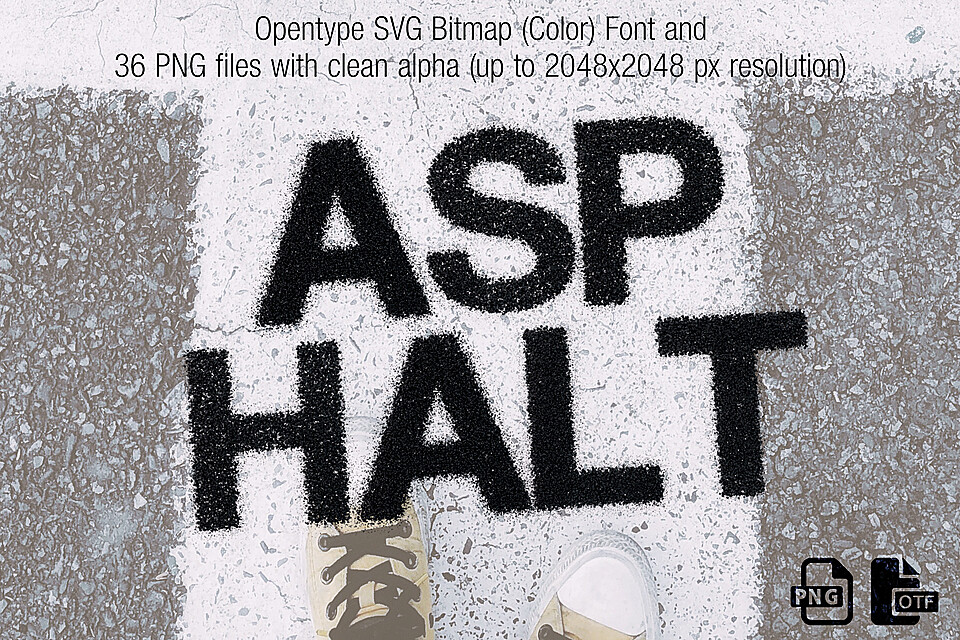
Asphalt Opentype SVG Font and PNGs
Asphalt OpenType SVG (Color) Font and PNGs
Each letter is modelled and rendered in a 3D Application, also converted into an Opentype SVG (Color Font)
Basic western uppercase letters
Numbers